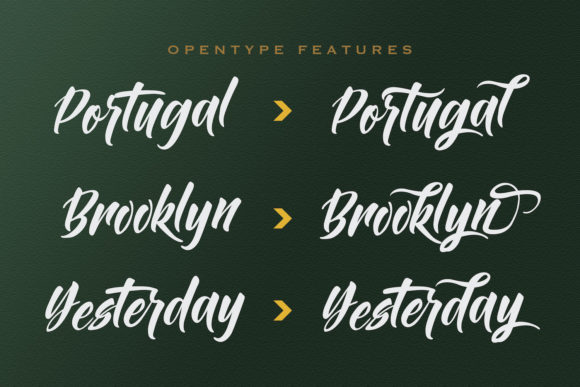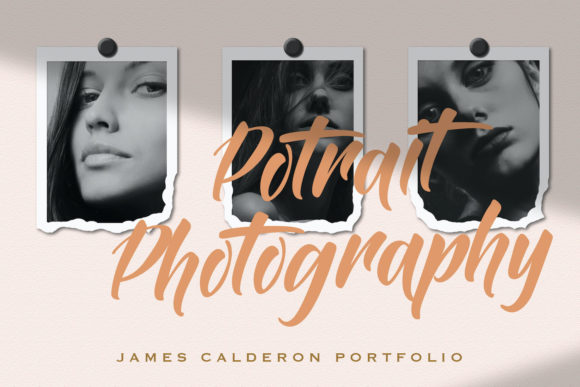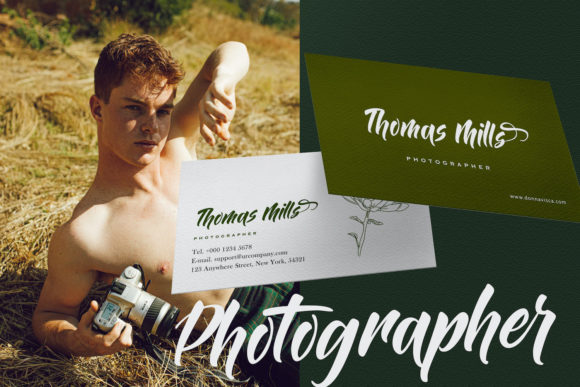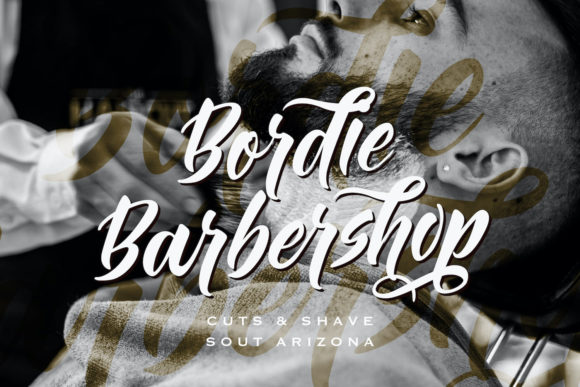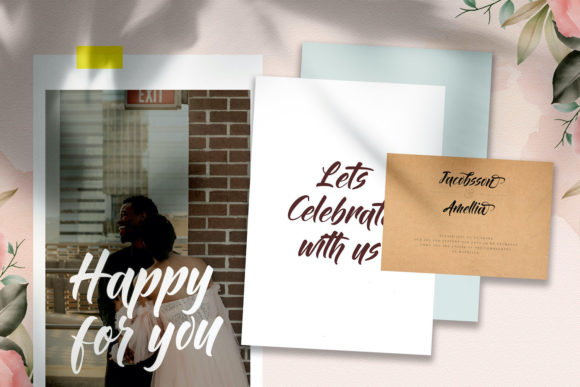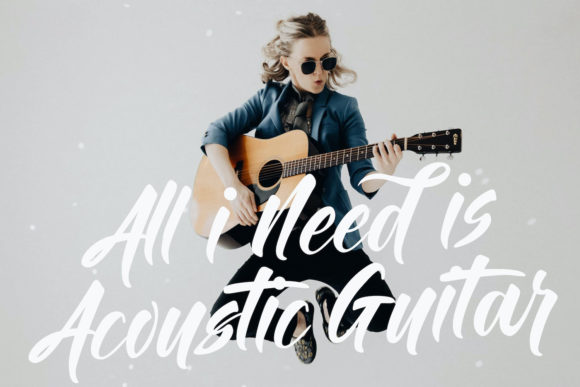
Unleash the Beauty of Handwritten Delicacy: Bintang Kejora Font
As a designer, have you ever found yourself staring at a blank canvas, searching for the perfect font to capture the essence of a special moment? Perhaps it’s a heartfelt thank you note or a romantic wedding invitation – whatever it is, you know that the right font can make all the difference.
Enter Bintang Kejora Font, a stunning handwritten font that exudes natural elegance and sophistication. With its delicate curves and whimsical flair, this font is perfect for projects that require a touch of warmth and personality. Whether you’re creating a birthday card or a wedding invitation, Bintang Kejora Font is sure to add a unique touch to your designs.
What makes Bintang Kejora Font truly valuable to designers is its PUA encoding, allowing you to access all the glyphs and swashes with ease. This means you can experiment with different combinations and styles to create truly one-of-a-kind designs that reflect your unique vision.
Bintang Kejora Font Key Features
- Font Family: Bintang Kejora is a Malay font family designed for the Indonesian language, making it ideal for publications and documents in Malay.
- Size and Resolution: The font family includes multiple weights and styles, ranging from 8pt to 72pt, with a resolution of 300 DPI for optimal print quality.
- Unique Characteristics: Bintang Kejora features a modern and elegant design, with a unique blend of traditional and contemporary elements, making it a standout choice for creative projects.
- Language Support: The font family supports the Malay language, including all its variations and dialects, making it an excellent choice for publications, documents, and websites targeting Malay-speaking audiences.
Bintang Kejora Font Review
I recently had the chance to work with the Bintang Kejora font, and I must say it’s a unique and interesting choice. Here’s my honest review.
- The font’s eclectic mix of traditional and modern elements gives it a distinctive character that’s perfect for creative projects.
- The font’s weight and line variation make it suitable for use in headings and body text, adding visual interest to any design.
- The font is highly legible, even at smaller sizes, making it a great choice for digital designs where space is limited.
- The font may not be suitable for formal or professional designs, as its playful nature may come across as unprofessional.
- The font’s character set is limited, which may cause issues when working with non-Latin scripts or special characters.
- The font’s style may not be to everyone’s taste, which could limit its appeal in certain design contexts.
Overall, I think the Bintang Kejora font is a great choice for designers looking to add a bit of whimsy and personality to their projects. While it may not be suitable for every design context, it’s definitely worth considering for creative and experimental projects.
Tips for Getting the Most Out of Bintang Kejora Font
Use Bintang Kejora font for creative and artistic projects, such as posters, flyers, and social media graphics.
Experiment with different font sizes and styles to add emphasis to your text elements.
Combine Bintang Kejora font with other creative elements, such as images and graphics, to create visually appealing designs.
Bintang Kejora font is commonly used for:
Poster design
Flyer design
Social media graphics